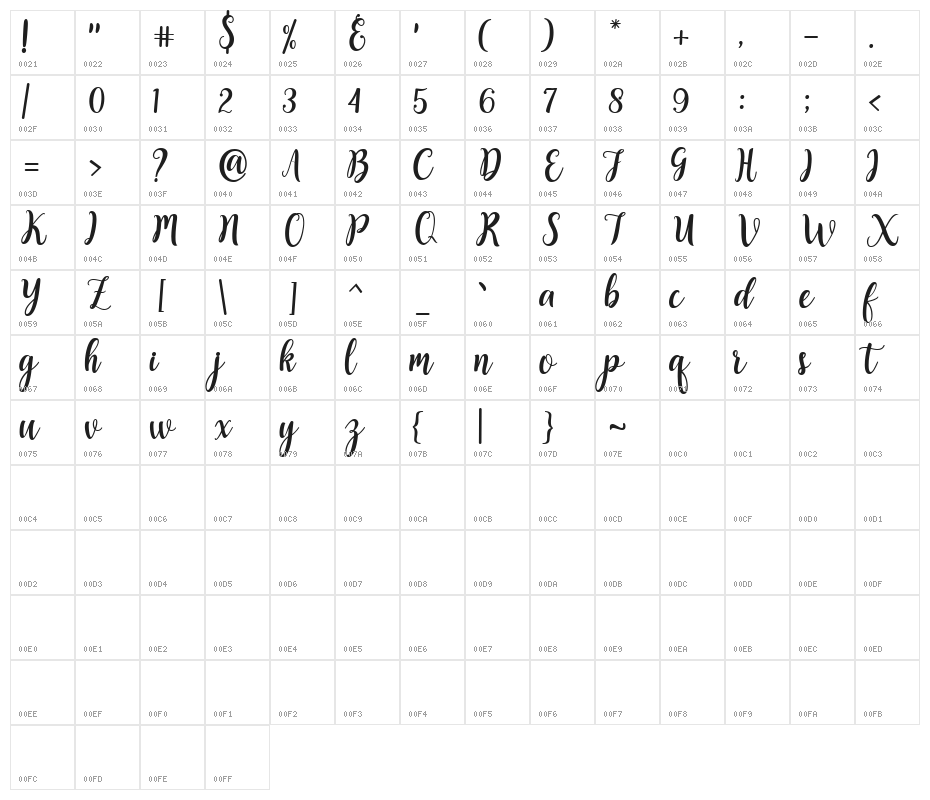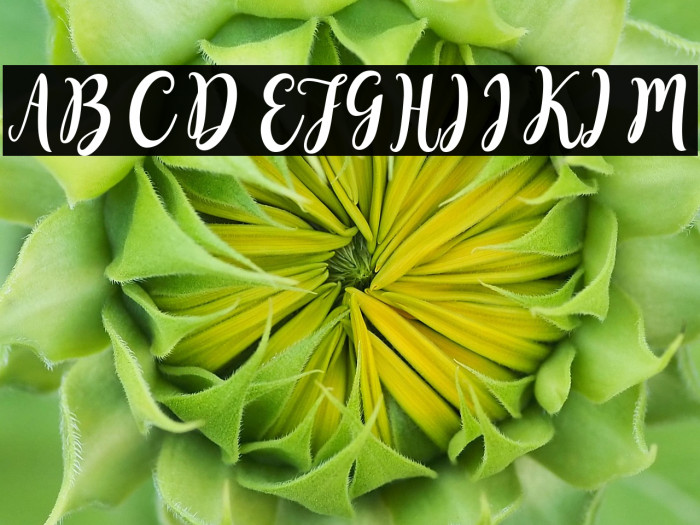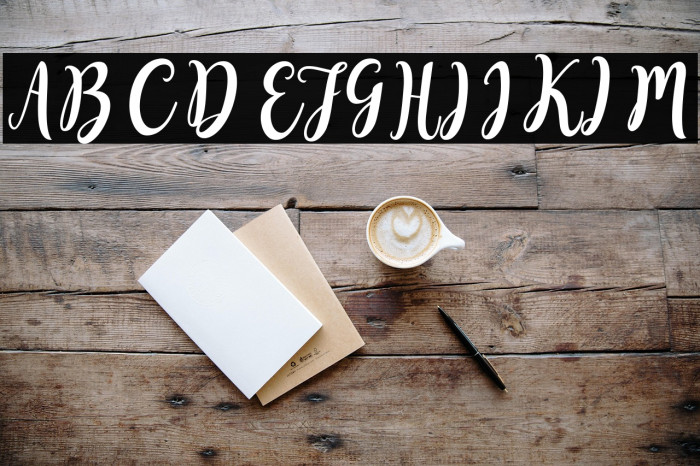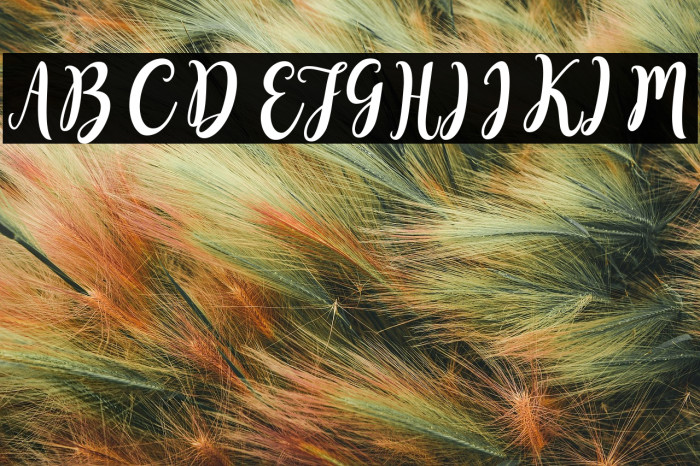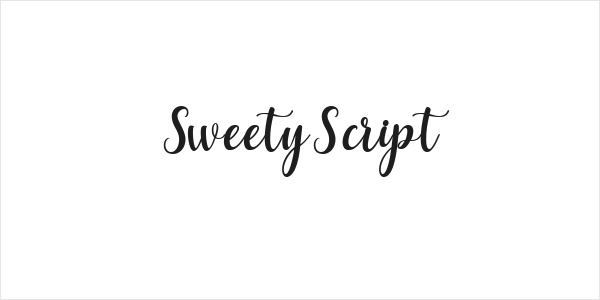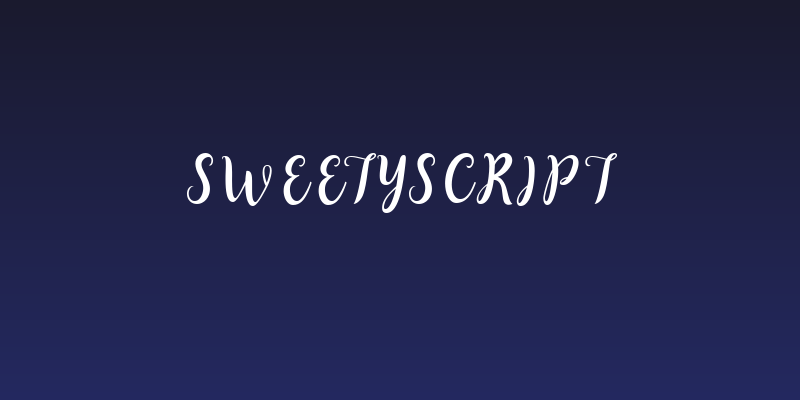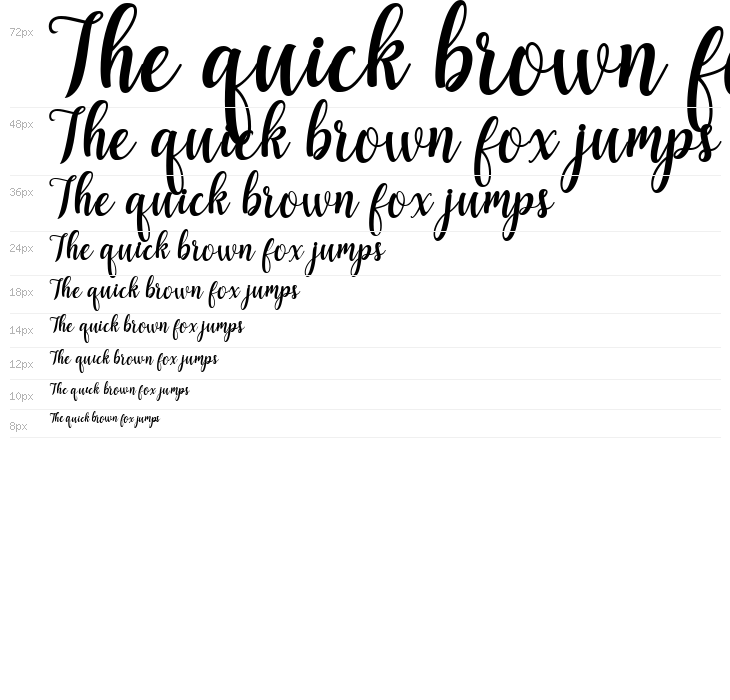
SweetyScript Font
SweetyScript Description
This font exudes a charming and playful script style, characterized by its flowing, cursive letterforms. The uppercase letters are elegantly crafted with smooth curves and a slight slant, giving them a whimsical yet sophisticated appearance. The lowercase letters maintain a consistent style, with loops and swashes that enhance the font's overall fluidity. The numerals are clear and easy to read, while the special characters integrate seamlessly with the rest of the font. This script font is perfect for adding a personal touch to any design, making it ideal for invitations, greeting cards, and branding projects.
| Use Case | Logos, Invitations, Greeting Cards |
| Proposed Projects | Ideal for wedding invitations, greeting cards, branding, and logo design. |